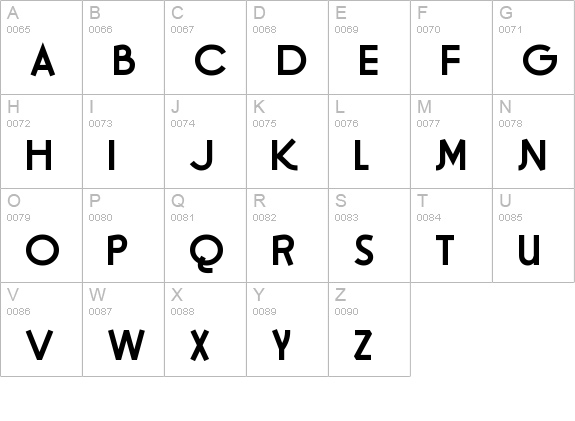
Gaumont Font Details
Gaumont font is a unique and stylish typeface that exudes elegance and sophistication. With its clean lines and classic design, Gaumont is perfect for a wide range of design projects, from logos to branding to editorial layouts. This versatile font features a timeless aesthetic that will bring a touch of class to any project. What's even better is that Gaumont font is available for free download at FontsMarket.com. This means that you can easily access this beautiful font and incorporate it into your designs without any cost. Whether you're a graphic designer, a blogger, or a small business owner looking to elevate your branding, Gaumont font is a fantastic choice that won't break the bank. Download Gaumont font today and add a touch of sophistication to your next project.